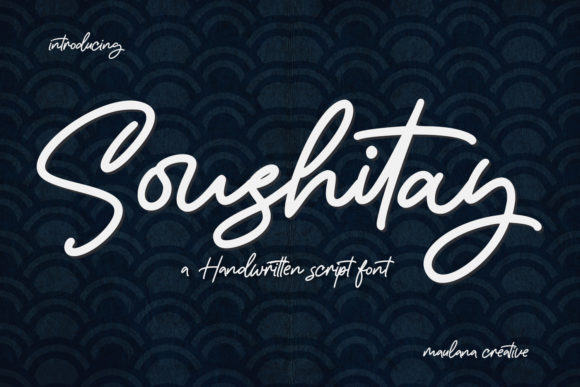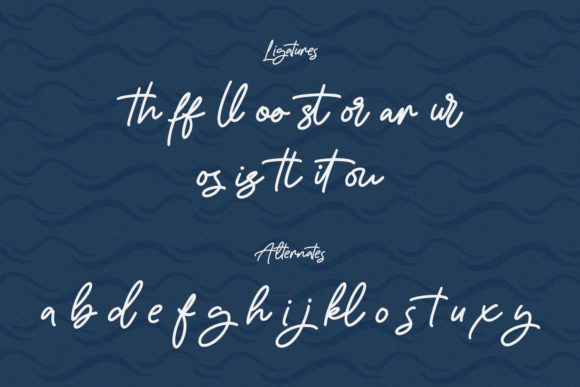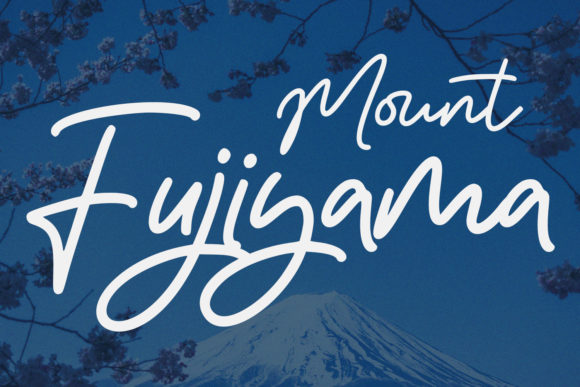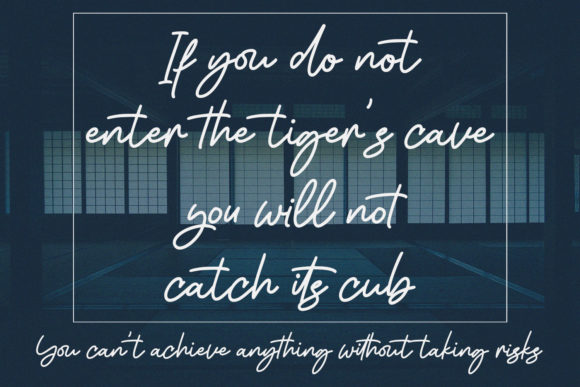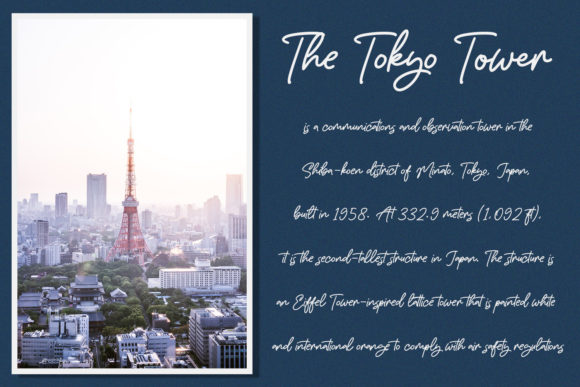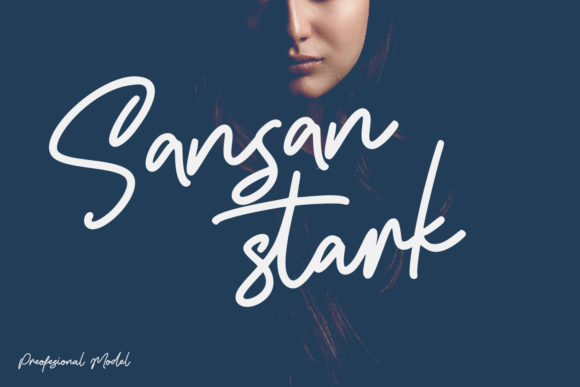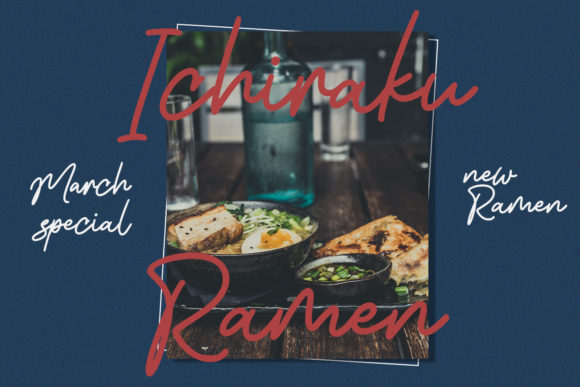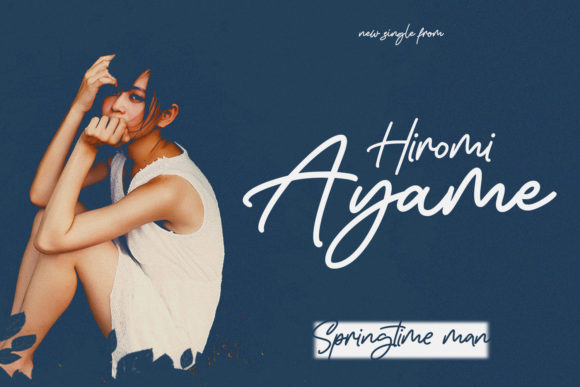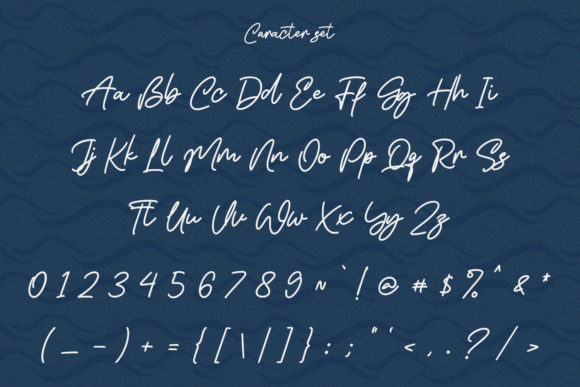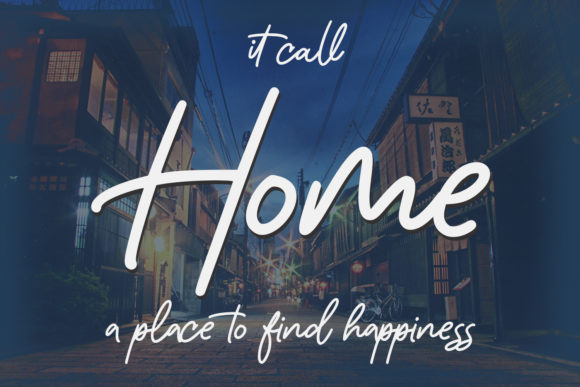
Soushitay Font
About Soushitay Font
“Soushitay” is introduced as a delicate and fashionable script font, crafted to bring an elegant and stylish touch to various design projects. The font is particularly recommended for branding projects, including logos, t-shirt printing, creative products, and more. The description suggests that “Soushitay” has the ability to look extraordinary in a variety of contexts.
The emphasis on “Soushitay” being delicate and fashionable implies a font with a refined and trendy aesthetic. This positioning makes it suitable for applications where sophistication and style are desired, particularly in branding and creative product designs.
The font’s versatility across logos, t-shirt printing, and creative products indicates that “Soushitay” can seamlessly adapt to different design contexts, providing designers with a tool for creating visually appealing and fashionable typography.
In summary, “Soushitay” is presented as a delicate and fashionable script font, well-suited for a variety of design projects. Its focus on elegance and adaptability positions it as a versatile choice for designers seeking a script font that adds a touch of style and sophistication to their creative endeavors.